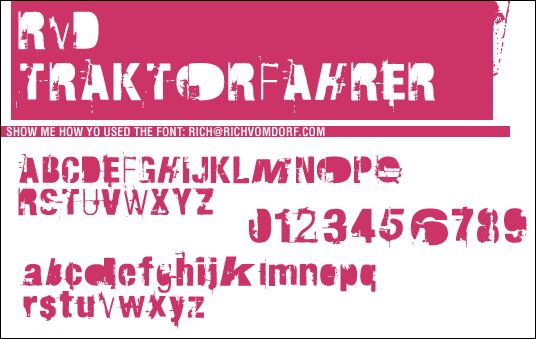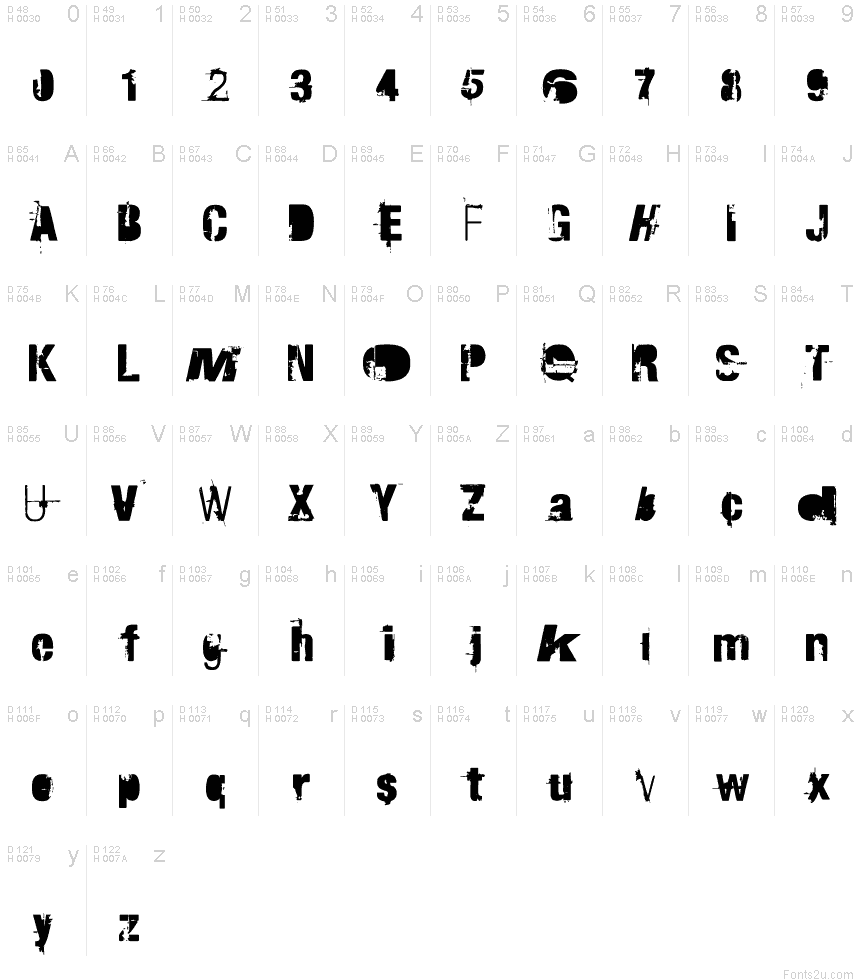
RvD Traktorfahrer is a free distressed industrial display font with broad, blocky letters, a hulking overall silhouette, tight spacing, and deep, irregular patches of erosion. Its torn edges and scraped interiors feel raw and mechanical.
Poster design is its strongest medium, especially for music events and machinery-themed campaigns, since the hard-used surface has the blunt force of battered metal. The same damaged surface suits album covers and merchandise, where the words can become part of a larger industrial texture or function like a battered factory sign rather than ordinary printed type.